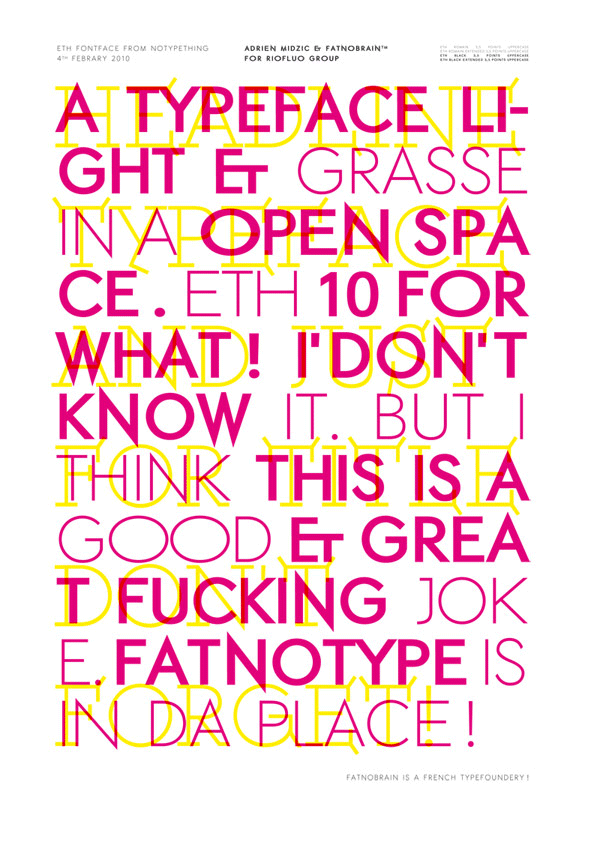
ETH Sans/EthRomainEthon.ttfETH Sans Large/EthBlackExtended.ttfETH Sans Large/EthExtended.ttfETH Serif/ETHSerifBlackEthon.ttfETH Serif/ETHSerifEthon.ttfNote of the authorEthon is a headline typeface which is disponible in three versions.
Sans, Sans large and Serif.